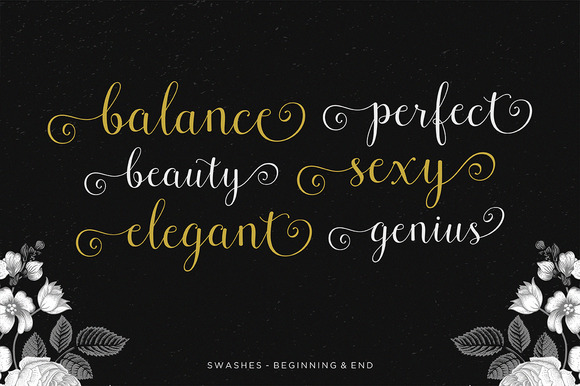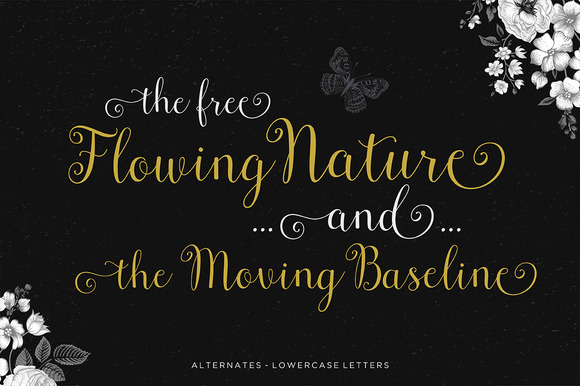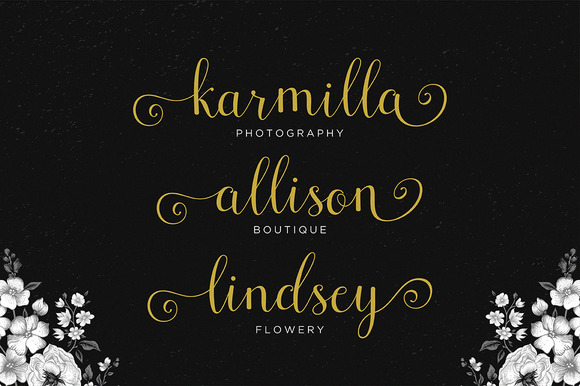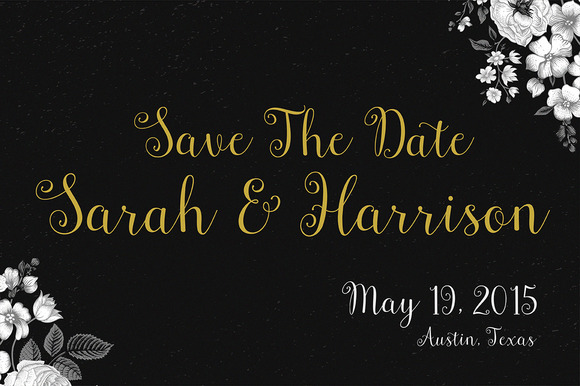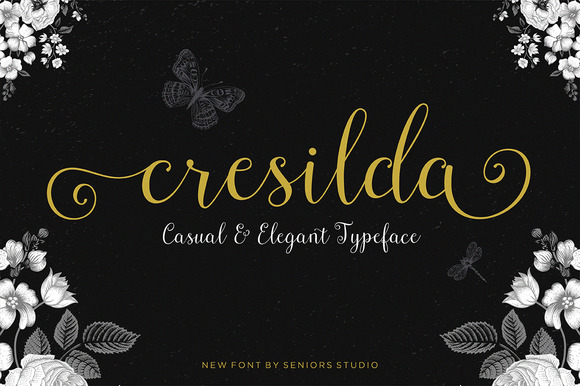
Cresilda Script Font: Elevate Your Designs with Elegant Fluidity
In the world of typography, a font can make or break a design. For those seeking a touch of elegance and fluidity, Cresilda Script Font is an exceptional choice. This beautiful, handwritten typeface is perfect for designers and crafters looking to add a unique and sophisticated flair to their projects.
The Characteristics of Cresilda Script Font
Cresilda Script is a fluid handwritten typeface that boasts a casual, yet elegant touch. Its most distinctive feature is its flowing and moving baseline, which gives it a dynamic and organic feel. This characteristic makes it perfect for designs that require a sense of movement and fluidity.
One of the standout qualities of Cresilda Script Font is its versatility. It can be used for a wide range of purposes, including:
- Headings: Add a touch of elegance to your headings and titles with Cresilda Script.
- Logos: Create a unique and memorable logo for your brand with this beautiful script font.
- Invitations: Make your invitations stand out with the elegant and fluid writing style of Cresilda Script.
- T-shirt designs: Add a touch of sophistication to your t-shirt designs with this versatile font.
- Greeting cards: Create beautiful and heartfelt greeting cards with Cresilda Script.
- Posters: Make a statement with your posters using this stunning script font.
- Labels: Add a touch of elegance to your labels and packaging with Cresilda Script.
- Book covers: Create a captivating book cover with this beautiful and fluid typeface.
- Brochures: Elevate your brochures with the sophisticated and elegant writing style of Cresilda Script.
Why Choose Cresilda Script Font?
With so many fonts available, why choose Cresilda Script? Here are just a few reasons:
- Unique and distinctive: Cresilda Script Font has a unique and distinctive style that will set your designs apart from the rest.
- Elegant and sophisticated: This font exudes elegance and sophistication, making it perfect for designs that require a touch of refinement.
- Highly versatile: As mentioned earlier, Cresilda Script Font can be used for a wide range of purposes, making it a great addition to any designer’s toolkit.
- Easy to read: Despite its fluid and handwritten nature, Cresilda Script Font is surprisingly easy to read, making it perfect for designs that require a clear and concise message.
Tips for Using Cresilda Script Font
To get the most out of Cresilda Script Font, here are a few tips:
- Use it sparingly: While Cresilda Script Font is beautiful, it can be overwhelming if used excessively. Use it sparingly to add a touch of elegance to your designs.
- Experiment with sizes: Cresilda Script Font looks great in a variety of sizes, from large headings to smaller body text.
- Pair it with other fonts: Don’t be afraid to pair Cresilda Script Font with other fonts to create a unique and interesting contrast.
| Font Name | Cresilda Script Font |
| Author | seniorsstudio |
Cresilda Script Font is a beautiful and versatile typeface that is perfect for designers and crafters looking to add a touch of elegance and fluidity to their designs. With its unique and distinctive style, elegant and sophisticated feel, and high level of versatility, it’s an excellent addition to any designer’s toolkit. Whether you’re creating headings, logos, invitations, or any other type of design, Cresilda Script Font is sure to impress.